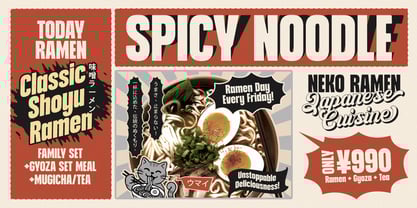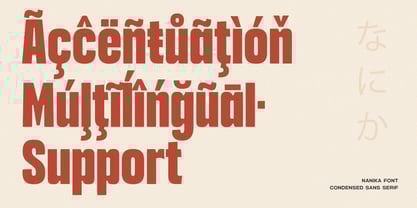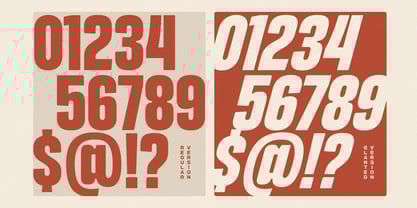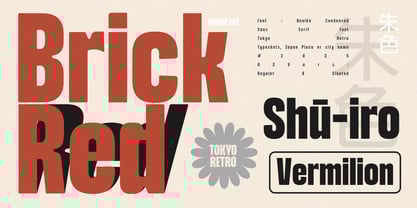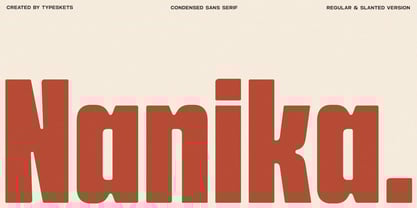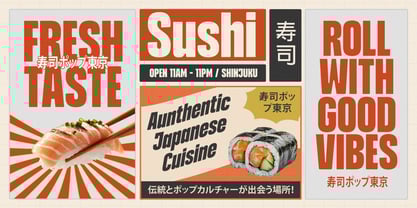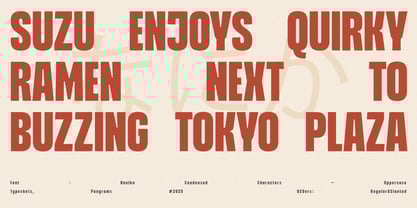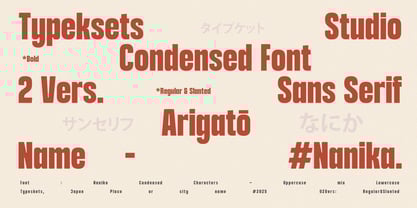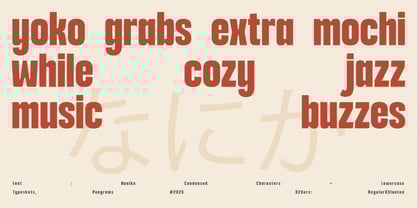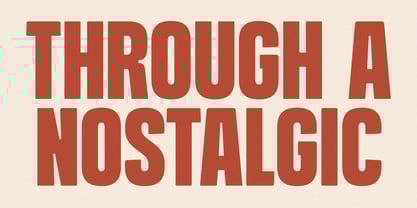
Nanika
by Typeskets
The Nanika Font Family was designed by Sahrul Hidayat and published by Typeskets. Nanika contains 2 styles and family package options.
Introducing Nanika, a bold condensed sans serif designed with modern precision and editorial power. Crafted to deliver maximum impact in minimal space, Nanika brings a confident, contemporary aesthetic inspired by Japanese graphic design, urban typography, and sleek geometric structure. With its strong vertical presence, tight spacing, and clean curves, Nanika is perfect for projects that demand boldness, clarity, and style. Whether you're designing posters, branding identities, packaging, motion graphics, or digital layouts, Nanika transforms simple words into striking visual statements. Nanika includes Regular & Slanted styles, giving designers flexibility for dynamic headlines, expressive layouts, and editorial-style contrast. Its bold proportions and unique rhythm make it ideal for fashion branding, sports graphics, magazines, product packaging, and minimalistic graphic design. Built for designers who want power, clarity, and visual impact—Nanika turns every headline into a statement.